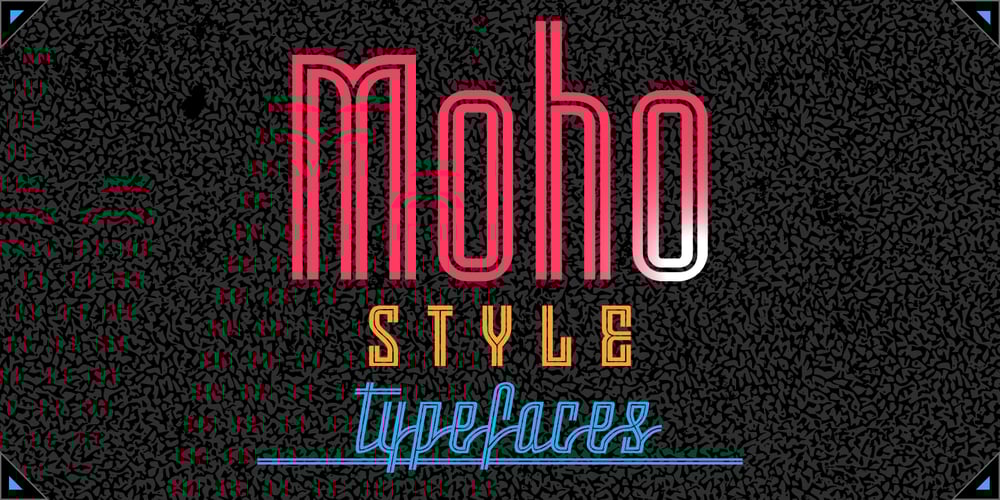
Moho Style Font Family was designed by John Moore and published by John Moore Type Foundry. Moho Style contains 12 styles and family package options. “Moho” is inspired by the Victorian sans shapes, movements and expressions of modernism art deco and constructivism, conceiving a decorative and elegant font, modern and readable display. This provides a retro look style of elegance of the 30s. Moho Condensed font family is straight, vertical, with joints and links or curvilinear or angular. Moho provides an innovation in the form of letters, to replace traditional forms of curves by straight or vice versa. Condensed Moho is a category of inline square letter, has an efficient OpenType programming for all Moho family, and basic for Moho Std Style family to compose texts in European languages of East and West, having im Pro a wide set up to 610 glyphs. Designed to hold and typesetting over 14 pts or less increasing readability depending on the tracking. Moho Condensed is ideal for publishing newspaper and magazine design, convenient for the design covers and labels due to its space saving. Moho Condensed typefaces are closely related to the arts and fashion are very useful in creating logos and brands.